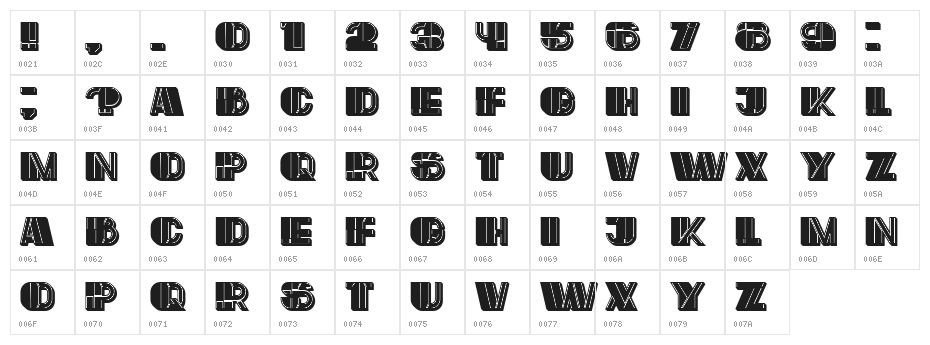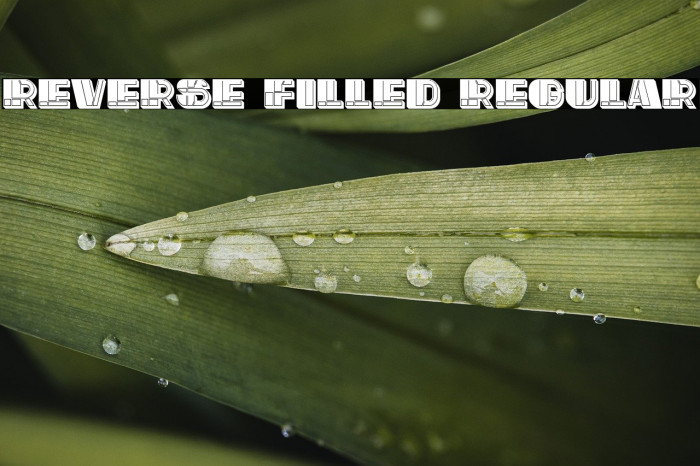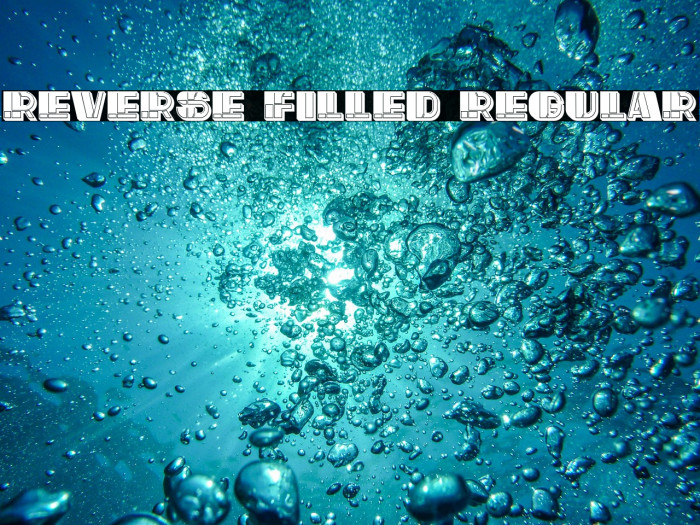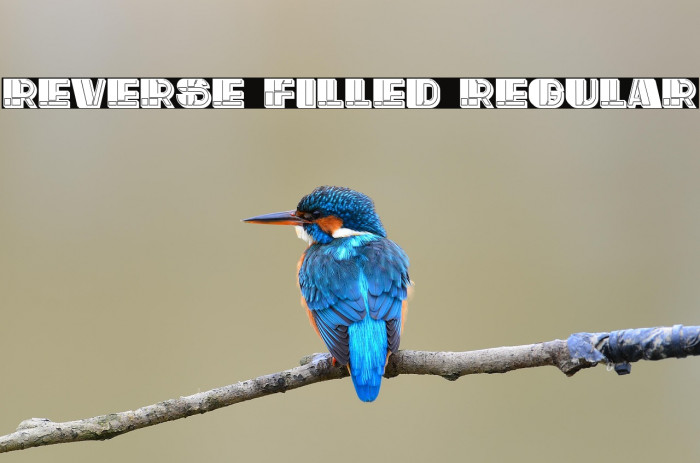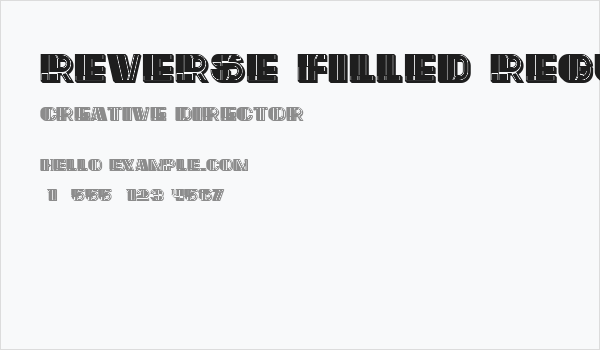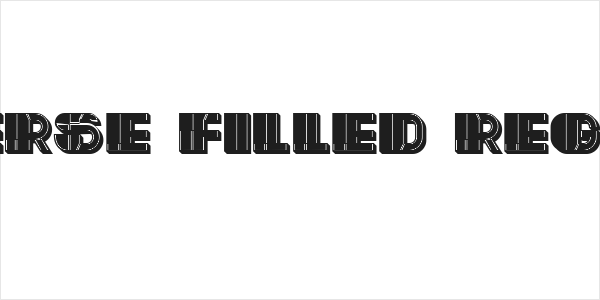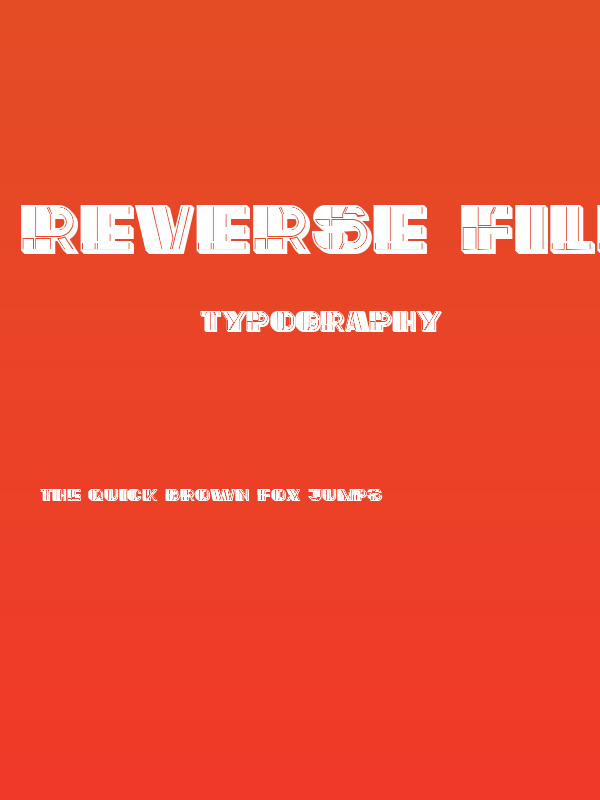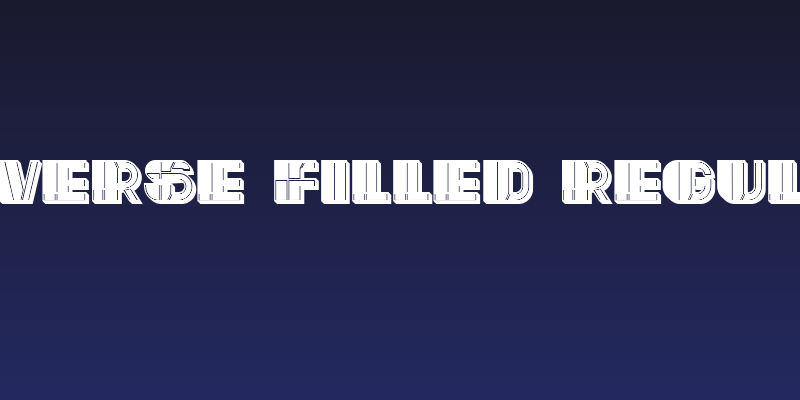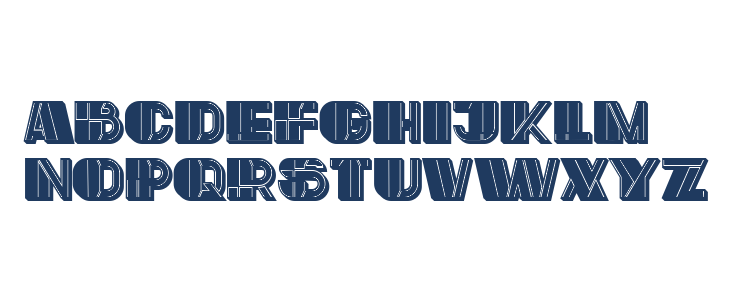
Reverse Filled Regular Font
Reverse Filled Regular Description
This font features a bold, geometric design with a unique reverse-filled style. The characters are constructed with thick, solid outlines and hollow interiors, creating a striking visual effect. The uppercase letters are consistent in height, with a modern, block-like appearance. The numerals and special characters follow the same design principles, ensuring uniformity across the typeface. This font's distinct style makes it ideal for attention-grabbing headlines and creative projects that require a bold statement.
| Proposed Projects | Ideal for posters, logos, branding materials, and any design requiring a bold, modern aesthetic. |